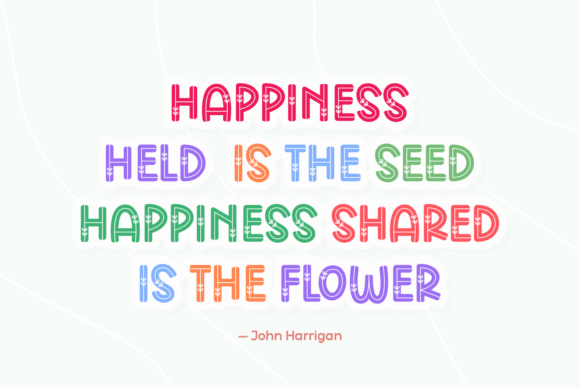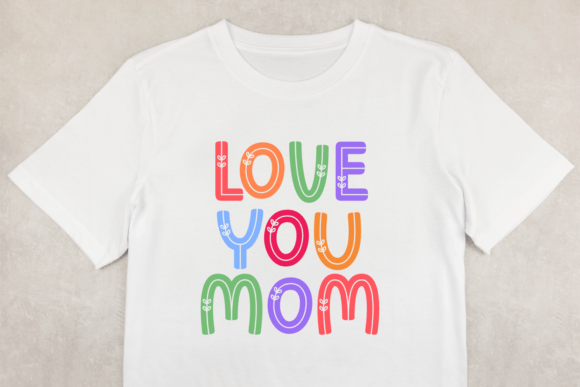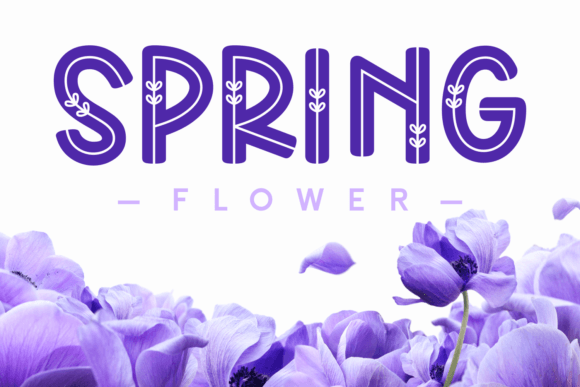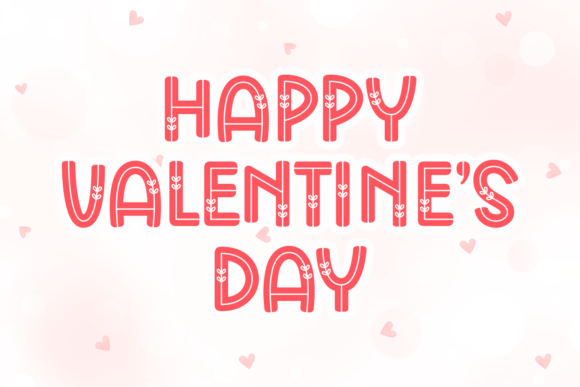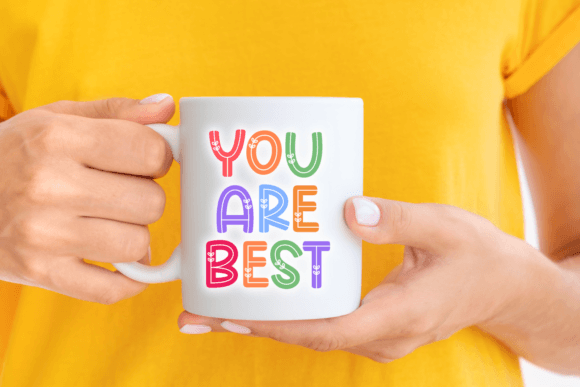
Introducing Glenda Wishes Font: A Nature-Inspired Masterpiece
Are you tired of using the same old fonts for your creative projects? Look no further than Glenda Wishes, a fancy font that adds a touch of nature-inspired charm to your text. This decorative font features leaves intricately woven into the letters, creating a whimsical and organic feel that’s perfect for giving your messages a unique and playful flair.
The Unique Features of Glenda Wishes Font
Glenda Wishes is a one-of-a-kind font that combines elegance and nature-inspired design. Its decorative style features leaves that are intricately woven into the letters, creating a beautiful and eye-catching effect. The font is perfect for designers and crafters who want to add a touch of whimsy and charm to their projects.
One of the standout features of Glenda Wishes is its ability to evoke a sense of nature and the outdoors. The leaves that are woven into the letters are delicate and intricate, creating a sense of movement and texture. This font is perfect for projects that require a natural and earthy feel, such as:
- Floral arrangements and garden-themed designs
- Children’s books and educational materials
- Branding and packaging for eco-friendly products
Why Choose Glenda Wishes Font?
There are many reasons why Glenda Wishes font is a great choice for your creative projects. Here are just a few:
- Unique and eye-catching design: Glenda Wishes font is unlike any other font on the market. Its intricate leaf design and whimsical feel make it a standout choice for any project.
- Versatile: Glenda Wishes font can be used for a wide range of projects, from wedding invitations to children’s books.
- Elegant and sophisticated: Despite its whimsical feel, Glenda Wishes font is also elegant and sophisticated, making it perfect for projects that require a touch of luxury.
Tips and Tricks for Getting the Most Out of Glenda Wishes Font
Here are a few tips and tricks for getting the most out of Glenda Wishes font:
- Experiment with different font sizes: Glenda Wishes font looks great in a variety of font sizes. Experiment with different sizes to find the one that works best for your project.
- Pair with other natural fonts: Glenda Wishes font pairs well with other natural fonts, such as serif and script fonts.
- Use in combination with images: Glenda Wishes font looks great in combination with images of nature, such as flowers and leaves.
Glenda Wishes font is a unique and eye-catching font that’s perfect for designers and crafters who want to add a touch of nature-inspired charm to their projects. Its decorative style features leaves intricately woven into the letters, creating a whimsical and organic feel that’s sure to delight. With its versatility, elegance, and ease of use, Glenda Wishes font is a great choice for any creative project.